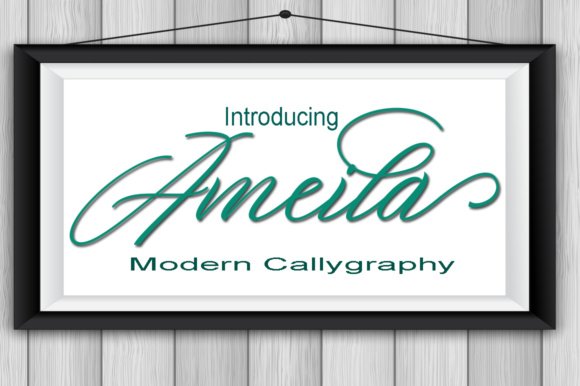
A Touch of Elegance: The Ameila Font
Have you ever found yourself scribbling down a quote or a poem in the margins of a beautiful notebook, only to be captivated by the way your handwriting flows across the page? That’s exactly the kind of creative moment that sparked the design of the Ameila Font. This stunning modern calligraphy typeface is a masterclass in elegance and sophistication, making it the perfect addition to any design project that demands a touch of refinement.
The Ameila Font is a carefully crafted typeface designed to evoke a sense of luxury and sophistication. Its unique style and beautiful letterforms make it an invaluable tool for designers looking to add a touch of class to their work. Whether you’re working on a wedding invitation, a branding project, or a simple blog post, the Ameila Font is sure to elevate your design to the next level.
With its versatility and timeless charm, the Ameila Font is a must-have for any designer looking to add a little extra flair to their work. Its beauty lies not just in its aesthetic appeal, but also in its ability to convey a sense of sophistication and elegance, making it a valuable addition to any design arsenal.
Key Features of Amelia Font
- Unique Characteristics: Amelia Font features a modern, elegant design with subtle rounded edges, making it ideal for use in branding, packaging, and editorial design.
Ameila Font Review
Ameila Font is a beautiful, elegant script font that can add a touch of sophistication to any design project. Here’s my honest review of this font.
- The font has a smooth, flowing feel that makes it perfect for titles, quotes, and other display text.
- The letterforms are highly customizable, allowing you to adjust the weight, size, and spacing to suit your design needs.
- The font is highly legible, even at smaller font sizes, making it a great choice for body text.
- The font is not suitable for use in digital environments, such as web design or mobile apps, due to its complex letterforms and potential for kerning issues.
- The font may not be suitable for use in environments where a high level of readability is required, such as in print materials with small font sizes.
Ameila Font is a beautiful, elegant script font that is perfect for use in print materials, such as invitations, business cards, and brochures. While it may have some limitations, it is a great choice for designers looking to add a touch of sophistication to their designs.
Amelia Font is a versatile font that can be used in a variety of projects, including:
- Business cards and resumes
For optimal results, use Amelia Font in combination with bold colors and clean designs to create a professional and modern look.